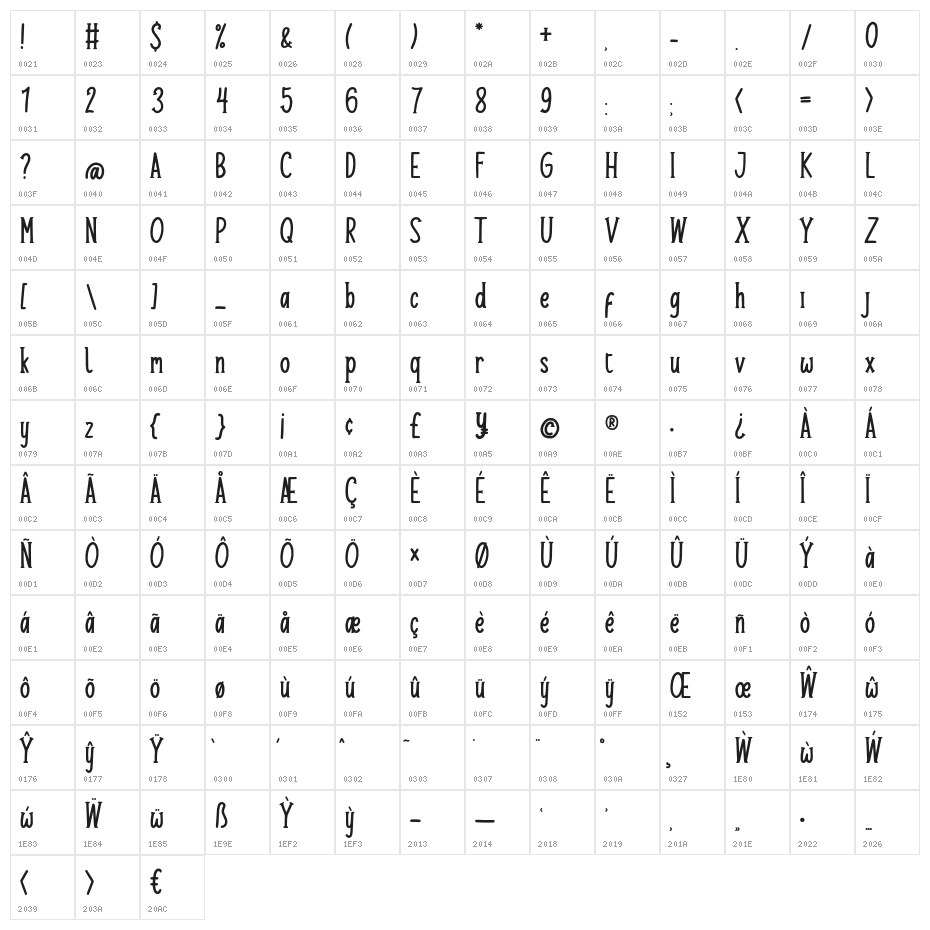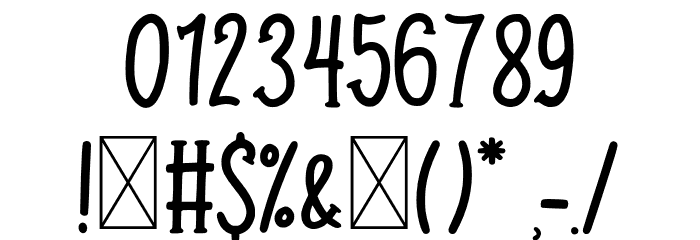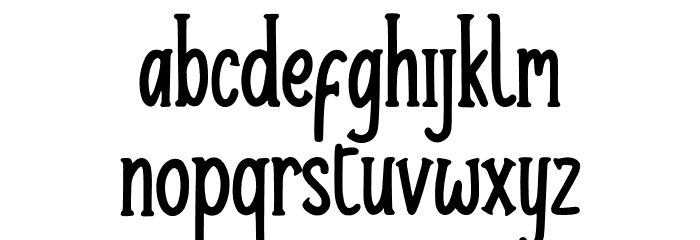
Honeybae Font
Honeybae Description
This font features a playful and whimsical style, characterized by its tall, narrow letters with a slight slant. The strokes are smooth and rounded, giving it a friendly and approachable appearance. The uppercase letters are bold and prominent, while the lowercase letters maintain a consistent flow with slightly exaggerated curves. The numbers are clear and legible, matching the overall aesthetic. Special characters are creatively designed, adding to the font's unique charm. This font is ideal for projects that require a touch of fun and creativity.
| Width | Condensed |
| Overall Style | Playful |
| Proposed Projects | Ideal for children's books, playful branding, greeting cards, and creative posters. |